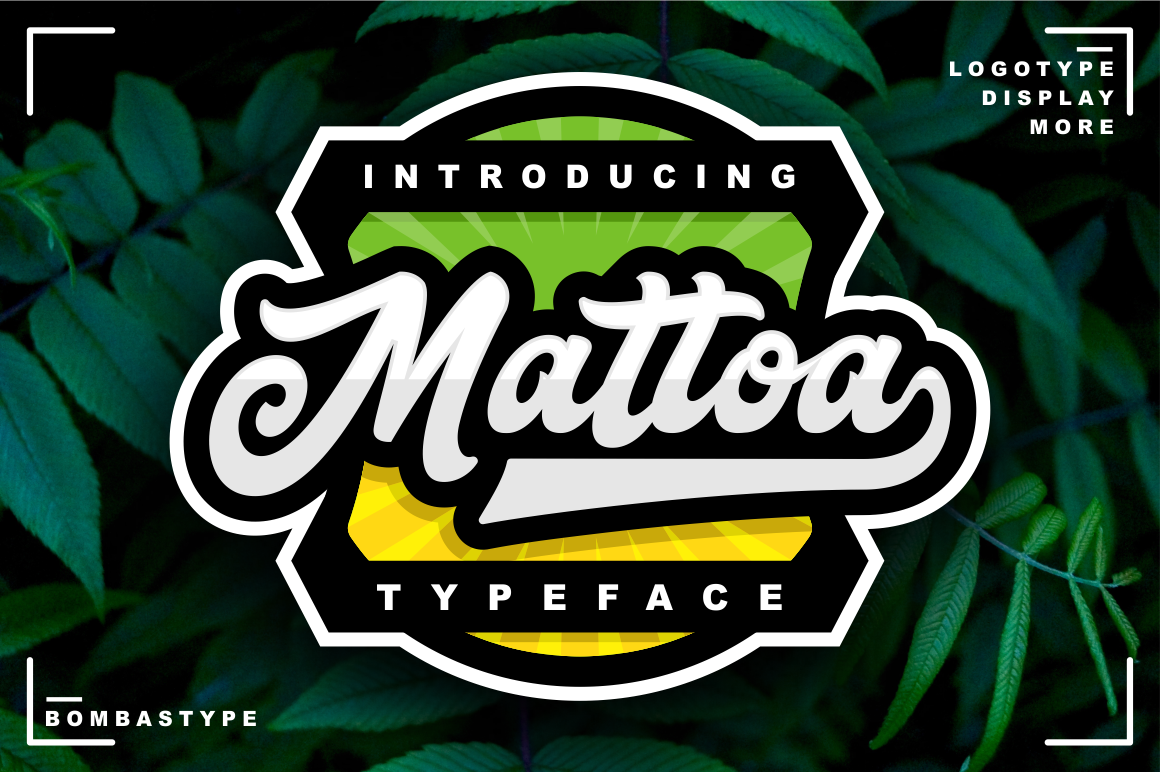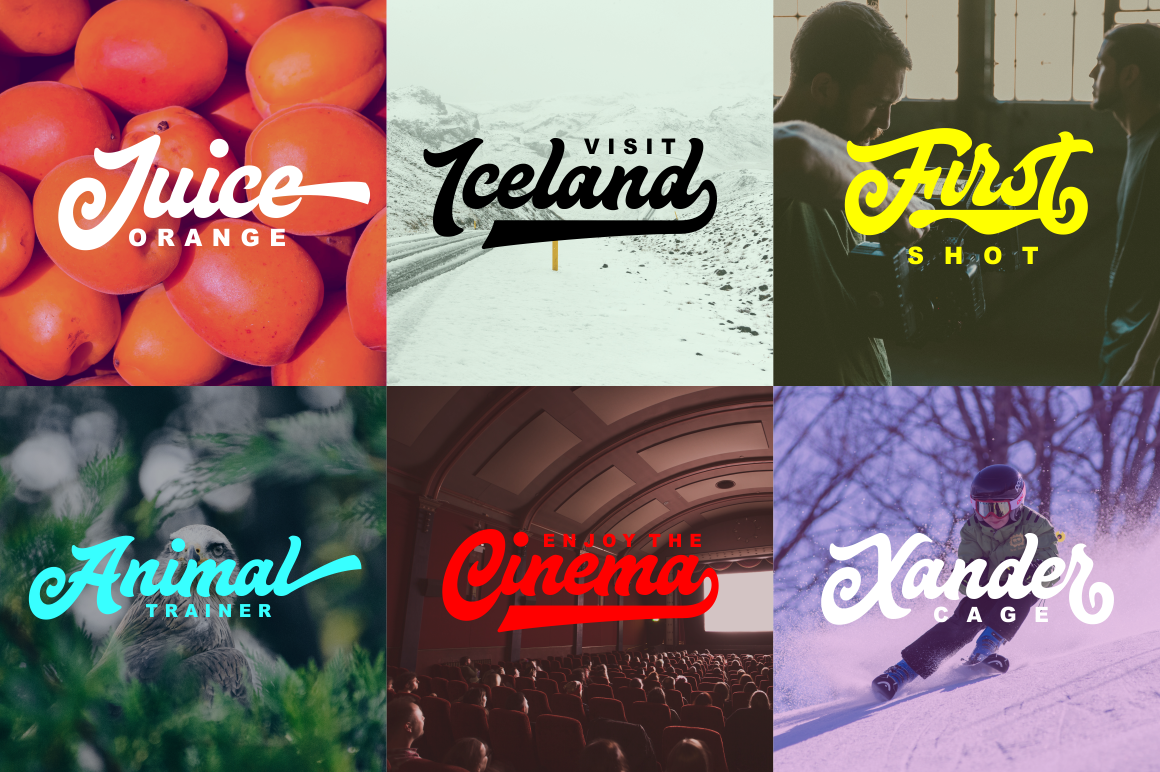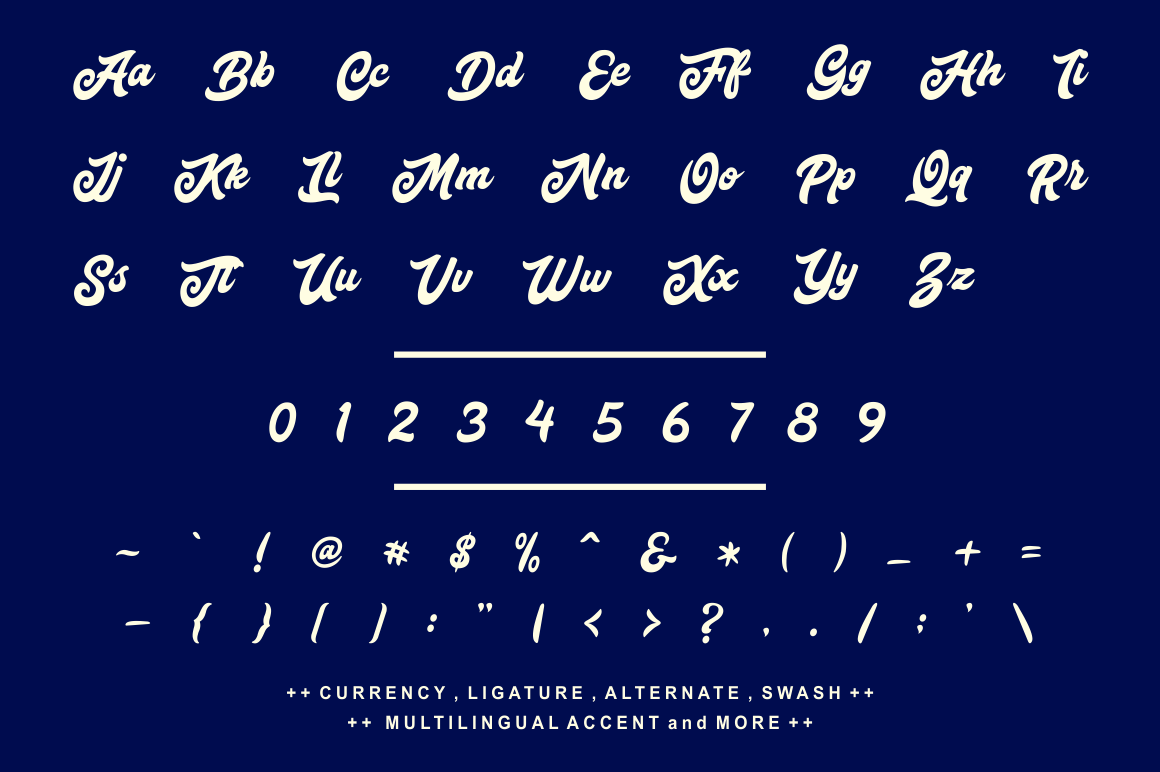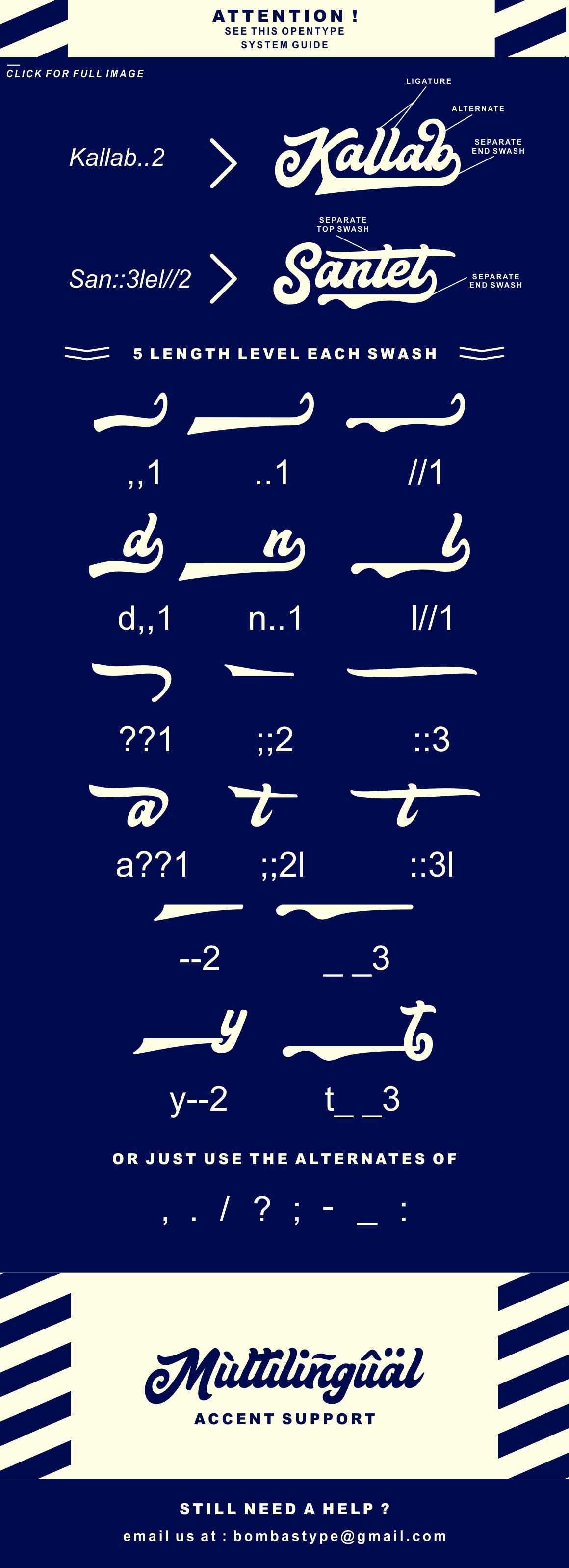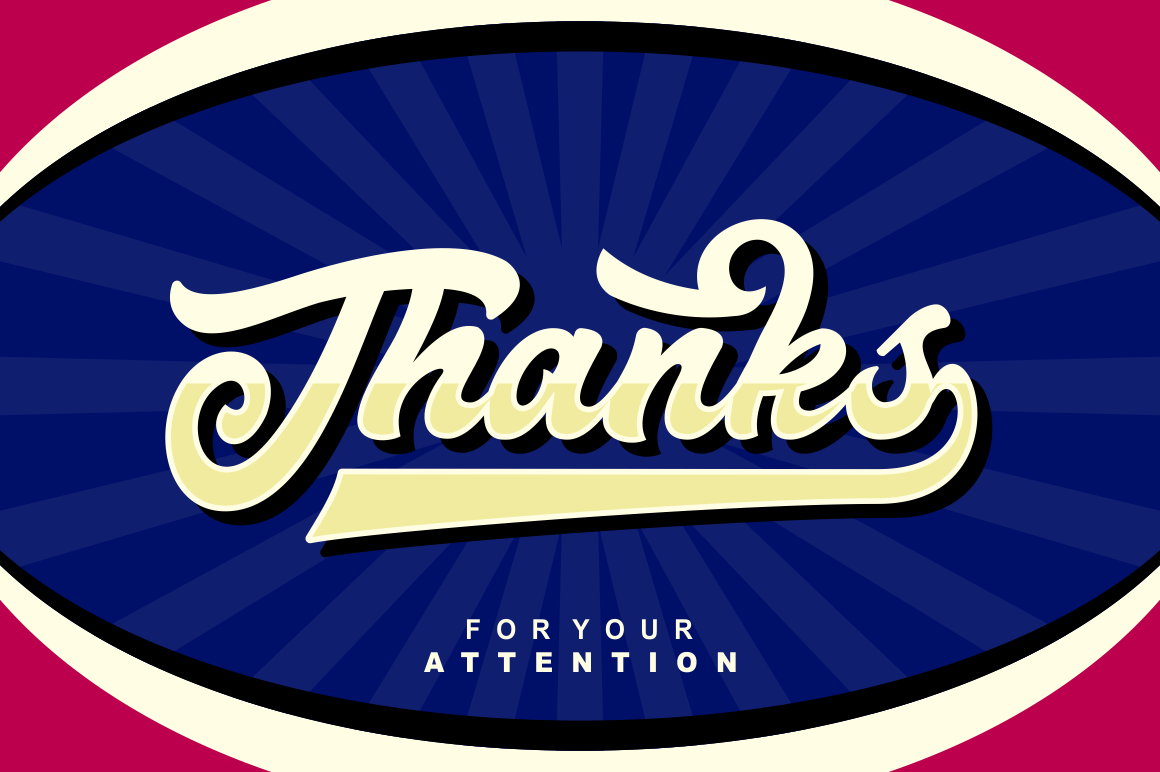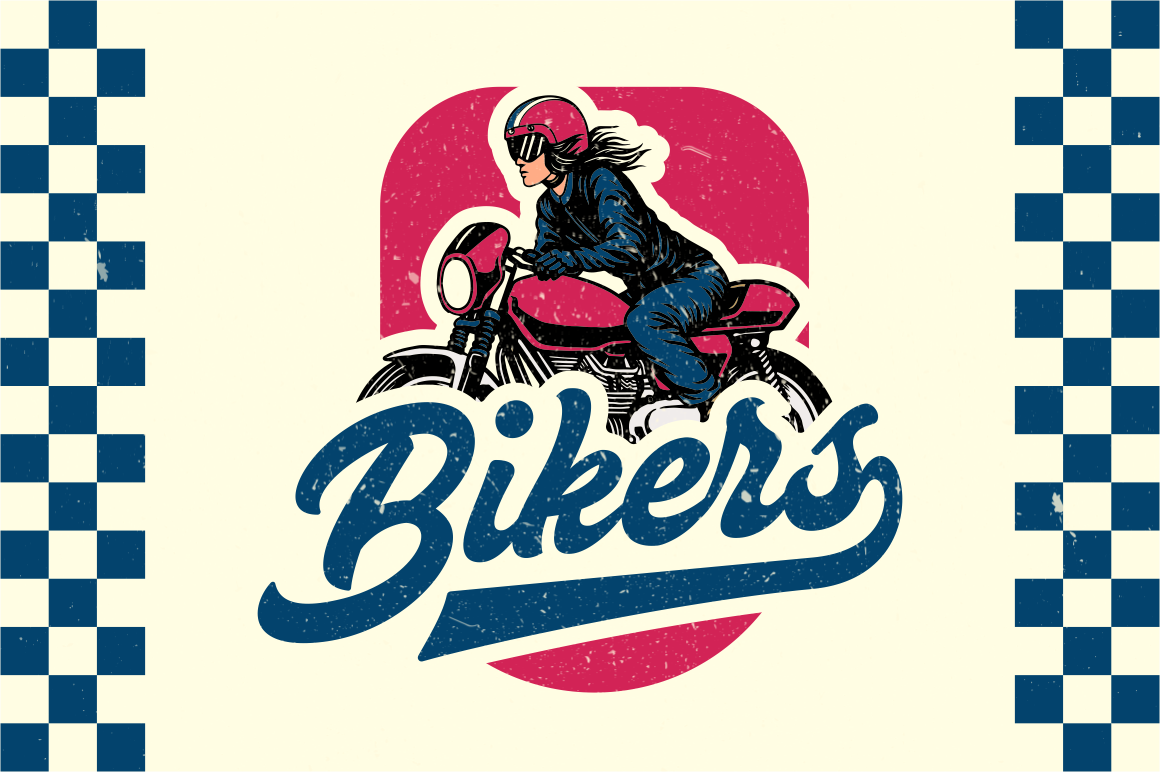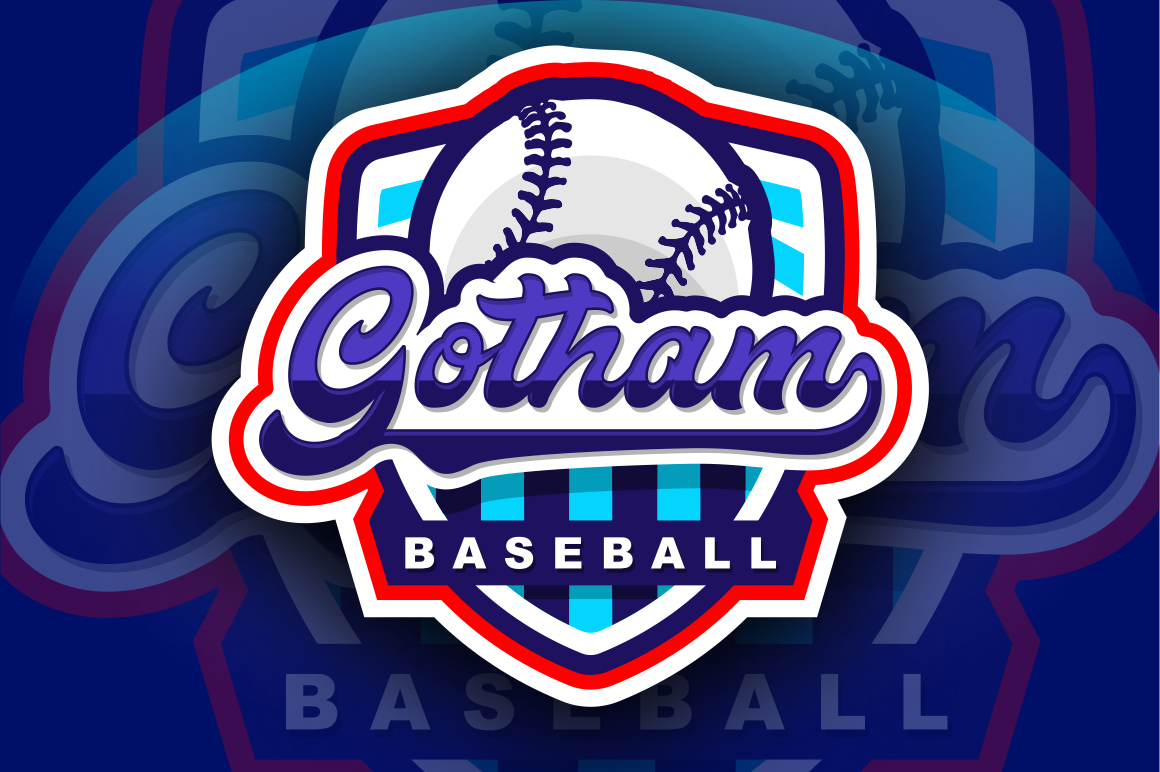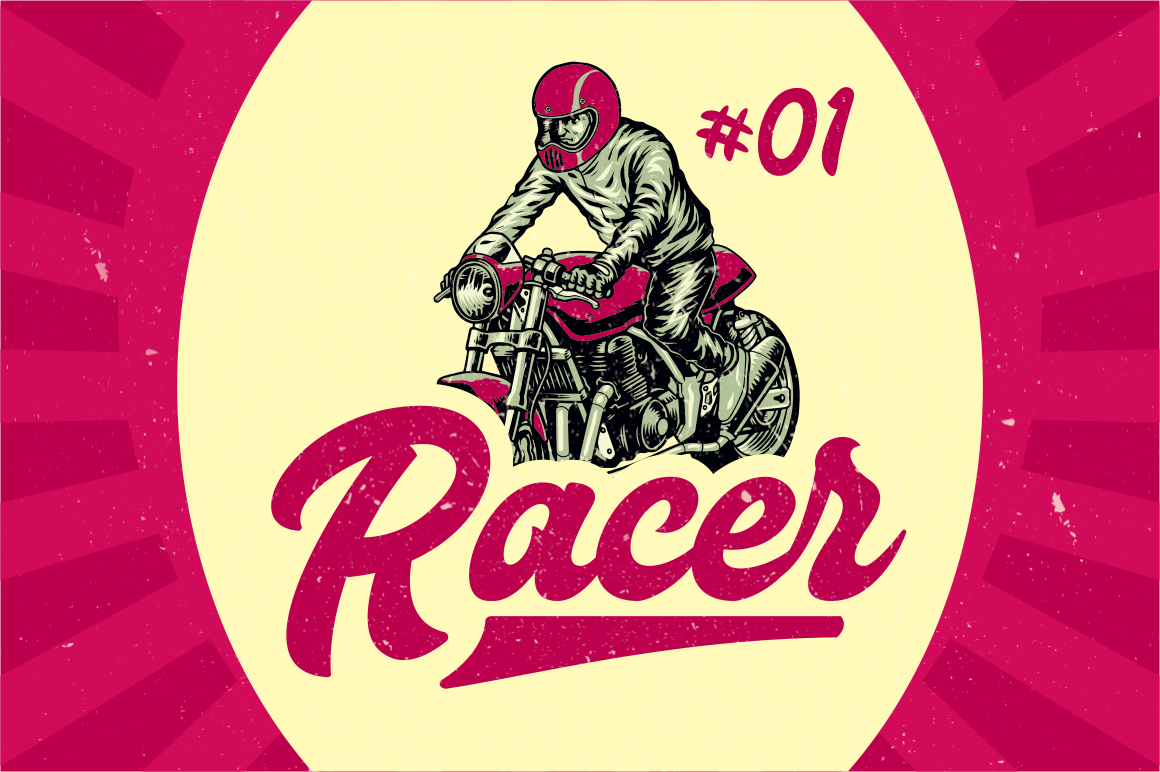
Mattoa Font
Proudly presenting Mattoa, a bold display typeface. This script font was made with logotype and display purposes in mind, making it the perfect choice for a large array of projects.
But don’t restrain your imagination–this font works especially well on both vintage and modern designs, so download Mattoa now.